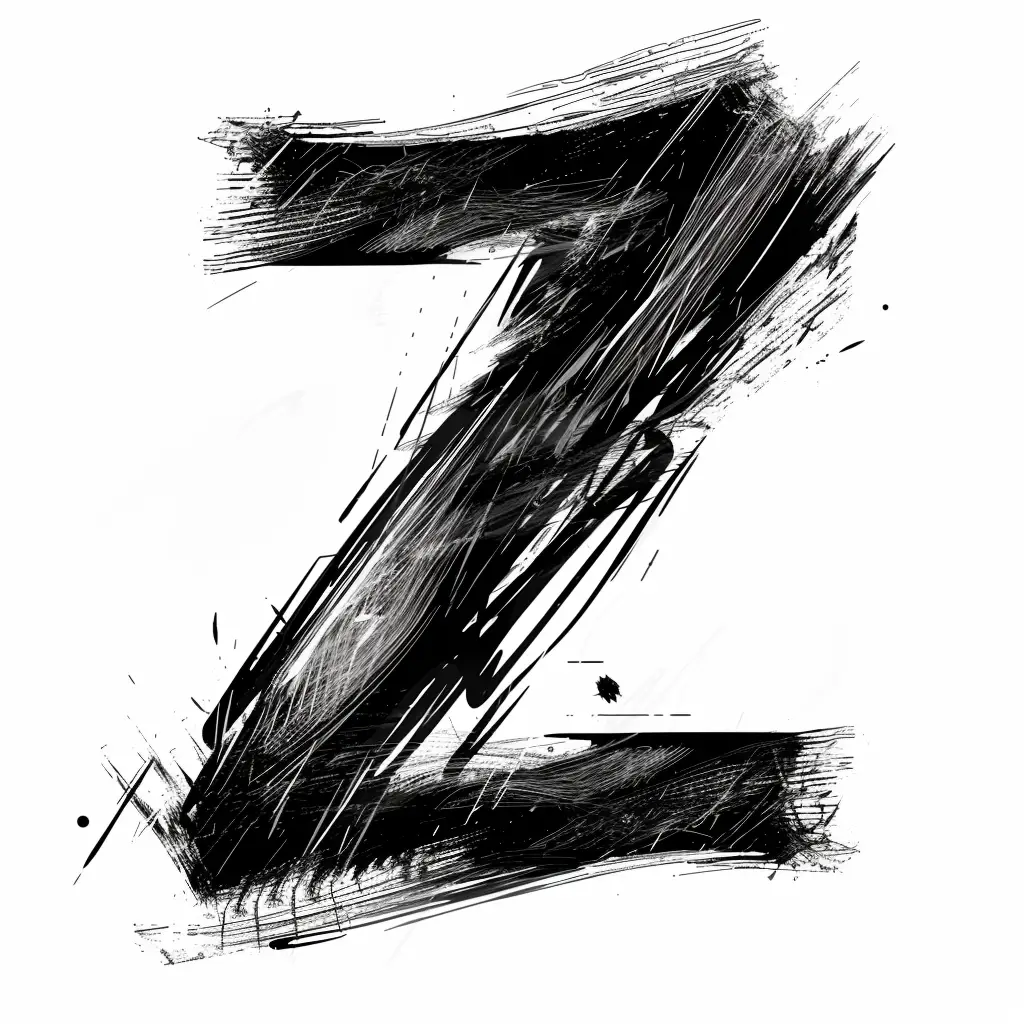
The image features a stylized, abstract representation of the letter "Z" rendered in bold black brushstrokes against a white background. The design incorporates dynamic, textured lines and splatters, giving it a rough, artistic, and energetic feel. The high-contrast black-and-white color scheme emphasizes the letter’s form, with subtle details like scattered marks and varying stroke thicknesses adding depth and movement.